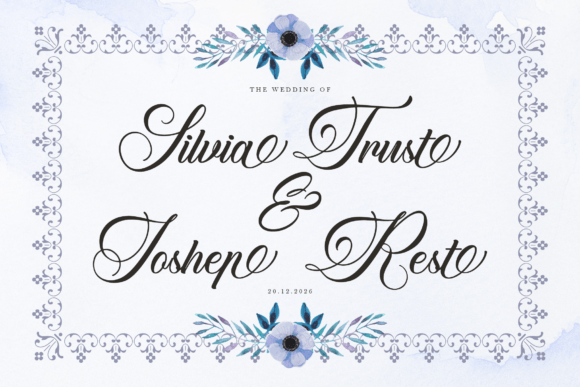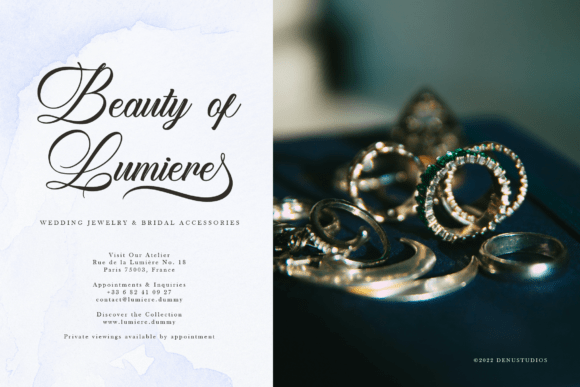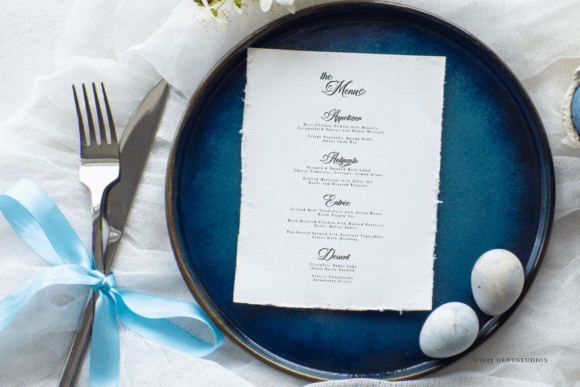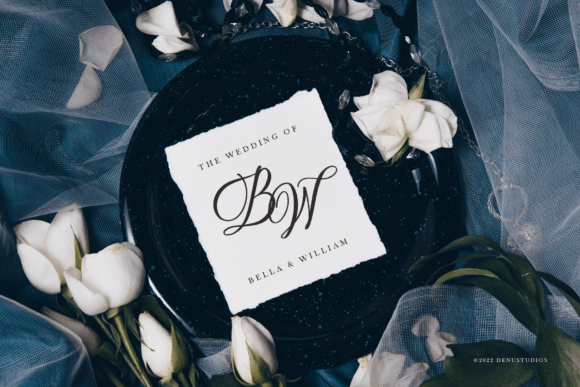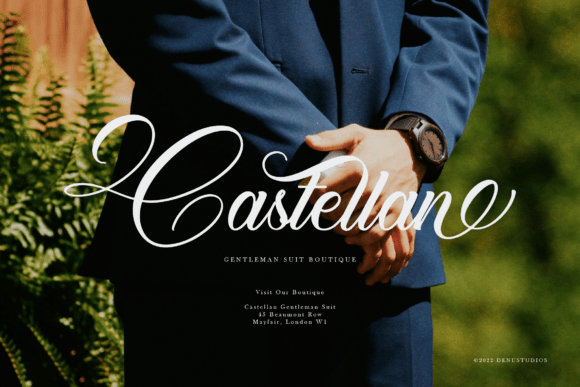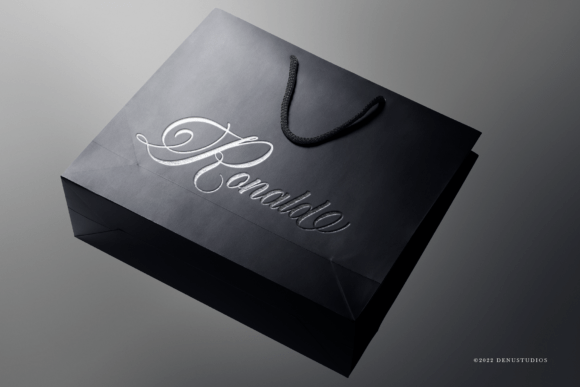
Aurelaydi Font: Elevate Your Designs with Timeless Elegance
In the world of typography, few fonts capture the essence of luxury and sophistication as effortlessly as Aurelaydi. This stunning calligraphy script is a masterclass in elegance, boasting fluid, rhythmic motion and dramatic flourishes that add a touch of high-end glamour to any design. Whether you’re a seasoned designer or a crafty DIY enthusiast, Aurelaydi is an exceptional choice for projects that demand a refined, romantic aesthetic.
The Characteristics of Aurelaydi
Aurelaydi’s beauty lies in its classic, slanted axis, which provides a sense of dynamism and movement. The letterforms themselves feature a gorgeous contrast between thick, substantial downstrokes and delicate, wispy hairlines. This striking contrast creates a sense of visual interest, drawing the eye through the text and imbuing it with a sense of fluidity.
One of the standout features of Aurelaydi is its extensive range of ligatures and alternate characters. These thoughtful additions allow designers to create a sense of continuity and flow, even in longer blocks of text. The font also boasts comprehensive multilingual support, making it an excellent choice for projects that require a global reach.
Perfect for Luxury Designs
Aurelaydi is tailor-made for designers and crafters seeking to create luxury wedding stationery, boutique brand identities, high-end event invitations, and upscale editorial designs. Its hand-lettered, romantic personality shines through in every letterform, lending a touch of sophistication and glamour to even the most discerning projects.
Imagine using Aurelaydi to create:
- Luxury wedding stationery, such as invitations, save-the-dates, and thank-you cards
- Boutique brand identities, including logos, packaging, and marketing materials
- High-end event invitations, like galas, charity events, or corporate gatherings
- Upscale editorial designs, such as fashion magazines, luxury lifestyle publications, or high-end blogs
Why Choose Aurelaydi?
With so many fonts available, why choose Aurelaydi for your next project? Here are just a few compelling reasons:
- Timeless elegance: Aurelaydi’s classic design ensures it will remain stylish for years to come, long after trends have come and gone.
- Versatility: With a range of ligatures, alternate characters, and comprehensive multilingual support, Aurelaydi adapts seamlessly to a variety of design applications.
- High-end aesthetic: Aurelaydi’s sophisticated, luxurious feel makes it perfect for projects demanding a refined, high-end personality.
- Easy to use: Aurelaydi is designed to be user-friendly, making it simple to incorporate into your workflow and get stunning results.
Tips for Working with Aurelaydi
To get the most out of Aurelaydi, consider the following tips:
- Pair with contrasting fonts: Combine Aurelaydi with a clean, sans-serif font to create striking visual contrast and add depth to your design.
- Experiment with ligatures: Take advantage of Aurelaydi’s ligatures and alternate characters to add a touch of personality to your text.
- Pay attention to spacing: Aurelaydi’s elegant, flowing design demands careful attention to spacing. Make sure to leave enough room between lines and words to let the font breathe.
Aurelaydi is a true gem in the world of typography, offering designers and crafters a sophisticated, elegant font perfect for luxury designs. With its timeless aesthetic, versatility, and high-end personality, Aurelaydi is sure to elevate your projects and leave a lasting impression. Whether you’re creating wedding stationery, boutique brand identities, or upscale editorial designs, Aurelaydi is an exceptional choice for anyone seeking to add a touch of refinement and glamour to their work.